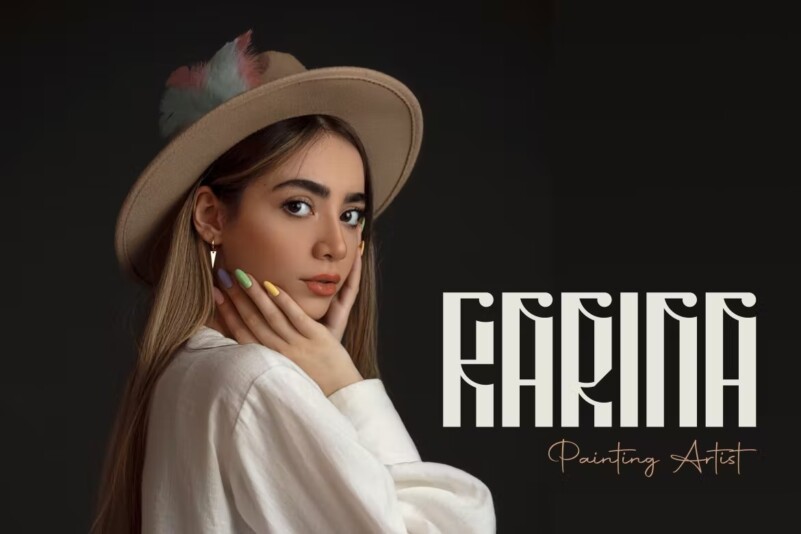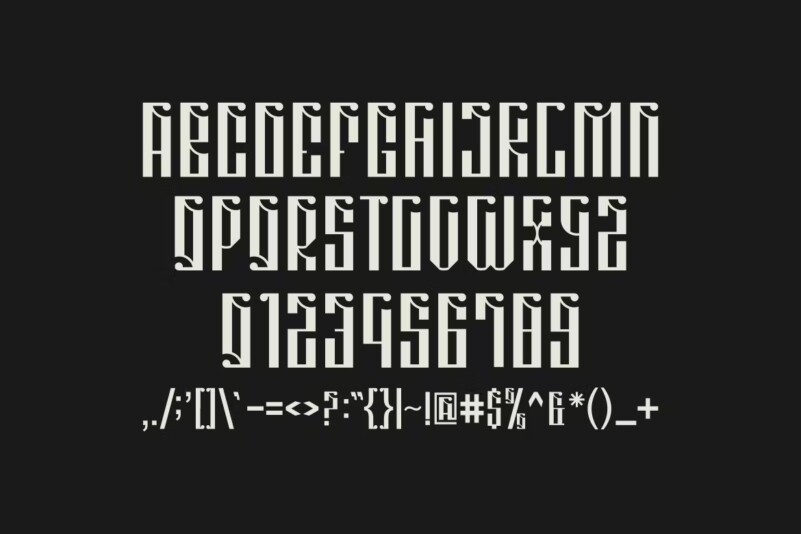
Party Castle Fonts
Introducing our new product Party Castle Fonts modern fonts.
Party Castle Fonts Fonts modern font is a bold and authentic display font. The font is suitable for any branding project like logo, t-shirt printing, esport, and many more. Outstanding in a wide range of contexts.